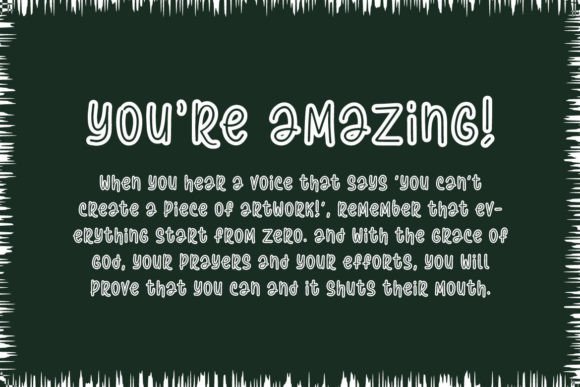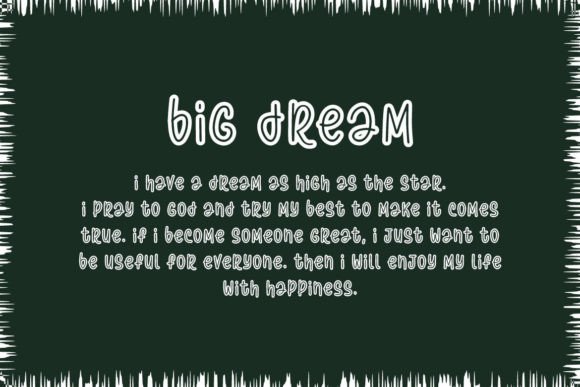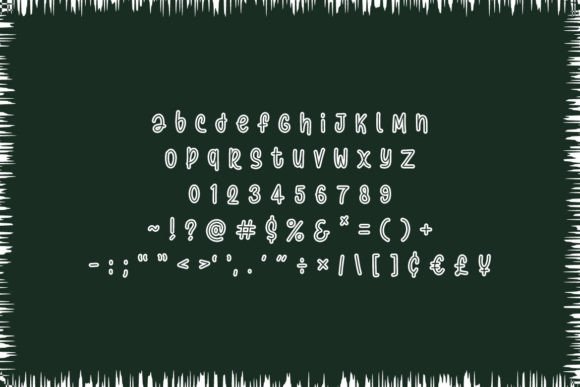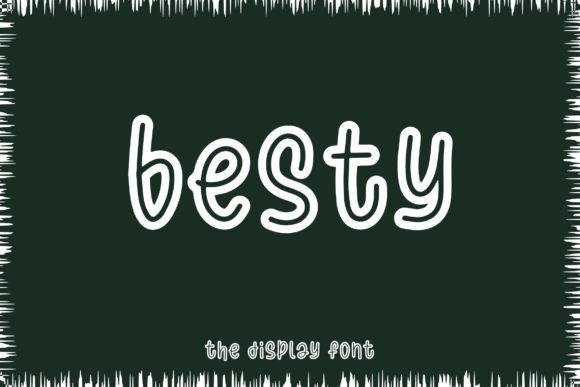
Introducing Besty Font: The Ultimate Modern Handwritten Display Font
Are you tired of using the same old fonts in your designs? Do you want to add a touch of modernity and personality to your creations? Look no further than Besty Font, a cool and modern handwritten display font that’s sure to elevate your font library.
What Makes Besty Font So Special?
Besty Font is a unique and stylish font that’s perfect for designers and crafters looking to add a personal touch to their work. Its modern and handwritten design makes it versatile enough to be used on a wide range of topics, from fashion and beauty to technology and lifestyle.
One of the standout features of Besty Font is its ability to add a touch of elegance and sophistication to any design. Its flowing lines and curves give it a dynamic and artistic feel that’s sure to capture the attention of your audience.
The Benefits of Using Besty Font
So why should you choose Besty Font for your next design project? Here are just a few benefits of using this amazing font:
• Versatility: Besty Font is perfect for a wide range of design projects, from posters and flyers to social media graphics and website headers.
• Elegance: The font’s modern and handwritten design adds a touch of elegance and sophistication to any design.
• Readability: Despite its artistic feel, Besty Font is highly readable, even at small sizes.
• Uniqueness: Besty Font is a one-of-a-kind font that’s sure to set your designs apart from the crowd.
How to Use Besty Font in Your Designs
Using Besty Font in your designs is easy. Here are a few tips to get you started:
• Pair it with other fonts: Besty Font pairs well with a wide range of other fonts, from sans-serif fonts like Arial and Helvetica to serif fonts like Times New Roman.
• Experiment with colors: Besty Font looks great in a wide range of colors, from bold and bright to soft and pastel.
• Use it for headlines: Besty Font is perfect for headlines and titles, where its elegant and artistic feel can really shine.
Who is Besty Font For?
Besty Font is perfect for designers and crafters who want to add a touch of modernity and personality to their work. It’s ideal for:
• Graphic designers: Besty Font is perfect for graphic designers who want to create stunning visual effects for their clients.
• Crafters: Besty Font is great for crafters who want to add a personal touch to their handmade projects.
• Small business owners: Besty Font is perfect for small business owners who want to create professional-looking marketing materials.
In conclusion, Besty Font is a cool and modern handwritten display font that’s perfect for designers and crafters looking to add a touch of personality to their work. Its versatility, elegance, and readability make it a valuable addition to any font library.